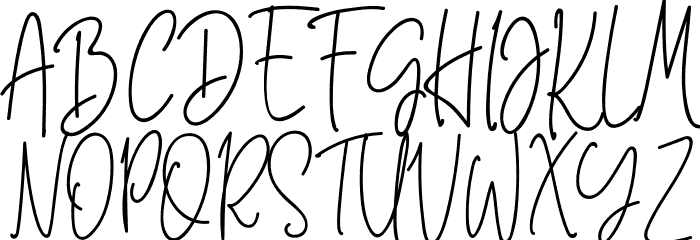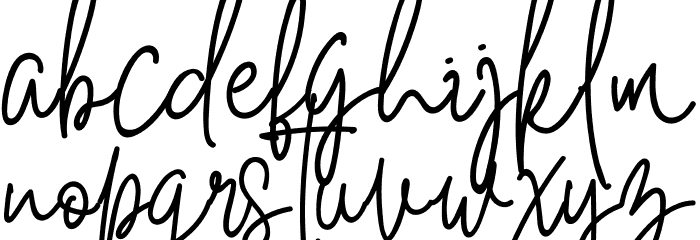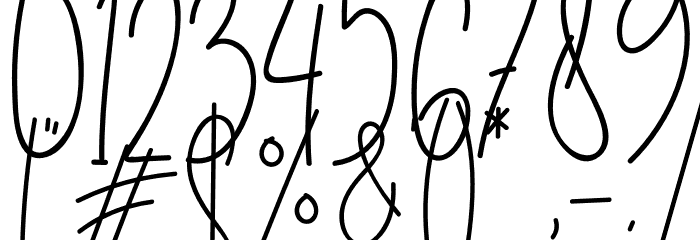
White Star Font
This font exhibits a lively and dynamic handwritten style, characterized by its fluid and continuous strokes. The uppercase letters are tall and slender, with a playful yet elegant appearance, while the lowercase letters maintain a consistent flow, enhancing readability. The numbers and special characters are crafted with the same energetic flair, making them visually cohesive with the alphabet. The overall design is reminiscent of casual handwriting, offering a personal touch that is both approachable and stylish. The font's thin lines and slight variations in stroke width add a subtle sophistication, making it suitable for a variety of creative applications.
A lively handwritten font with fluid strokes and a playful yet elegant style.
- Font: White Star
- Proposed Projects: Ideal for greeting cards, personal branding, social media graphics, and creative invitations.
- Category: Handwritten
- Weight: Light
- Overall Style: Casual, Elegant
- Use Case: Logos, Invitations, Social Media Graphics